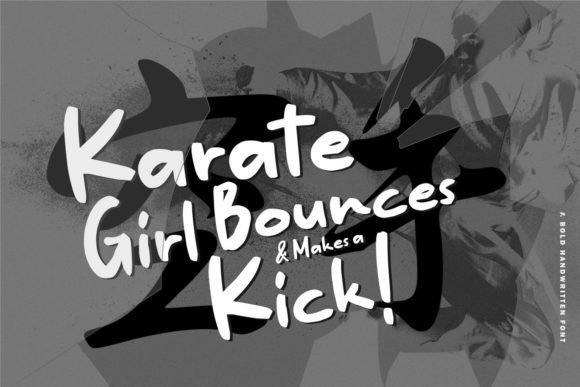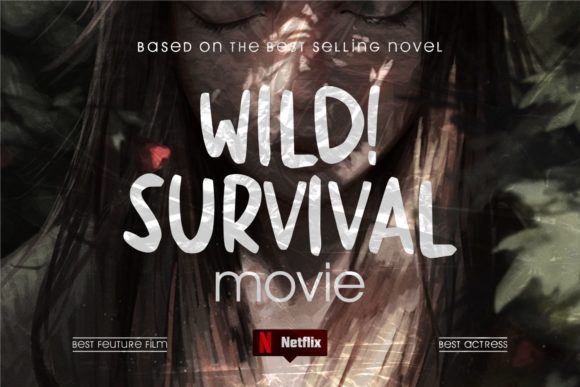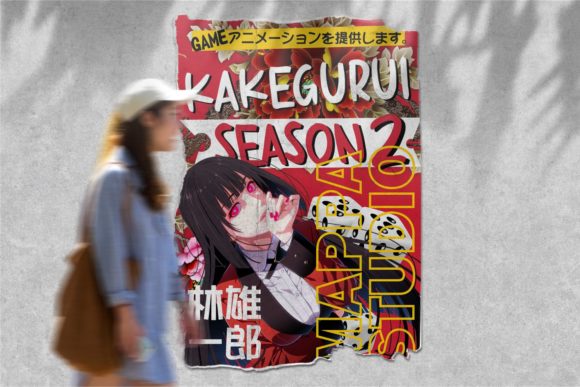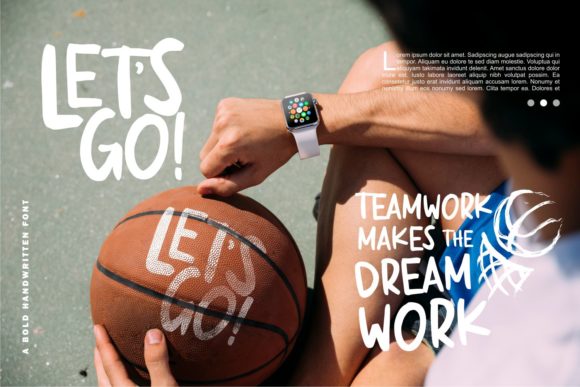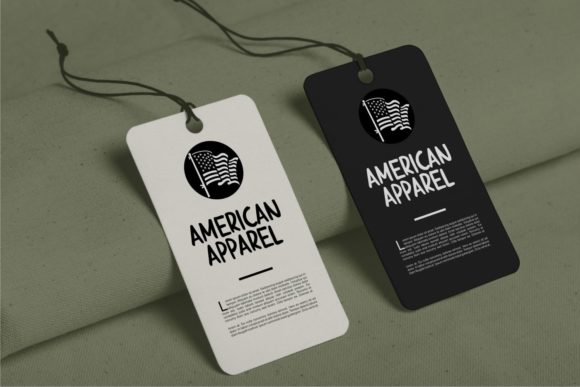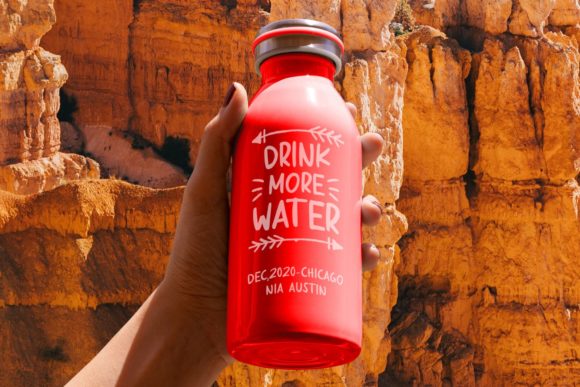
Introduction to Kikyö Font
Kikyö is a fun and bouncy display font.
Add this chunky lettered font to your designs and notice how it makes them come alive .